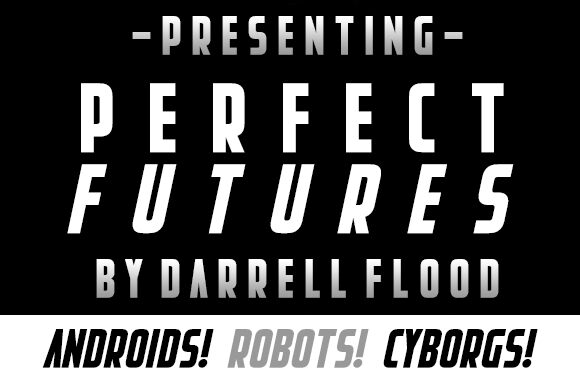
Perfect Futures Italic
Perfect Futures Italic is the bold and edgy display font from Darrell Flood that screams "future is now". Its futuristic sans serif style is perfect for conveying a sense of modernity and innovation, making it an ideal choice for projects that aim to showcase cutting-edge design. From digital advertisements to science-fiction book covers, this extra-condensed font is versatile enough to fit a wide range of creative works. If you want your message to stand out with a bold and daring flair, Perfect Futures Italic is the perfect typeface for you.